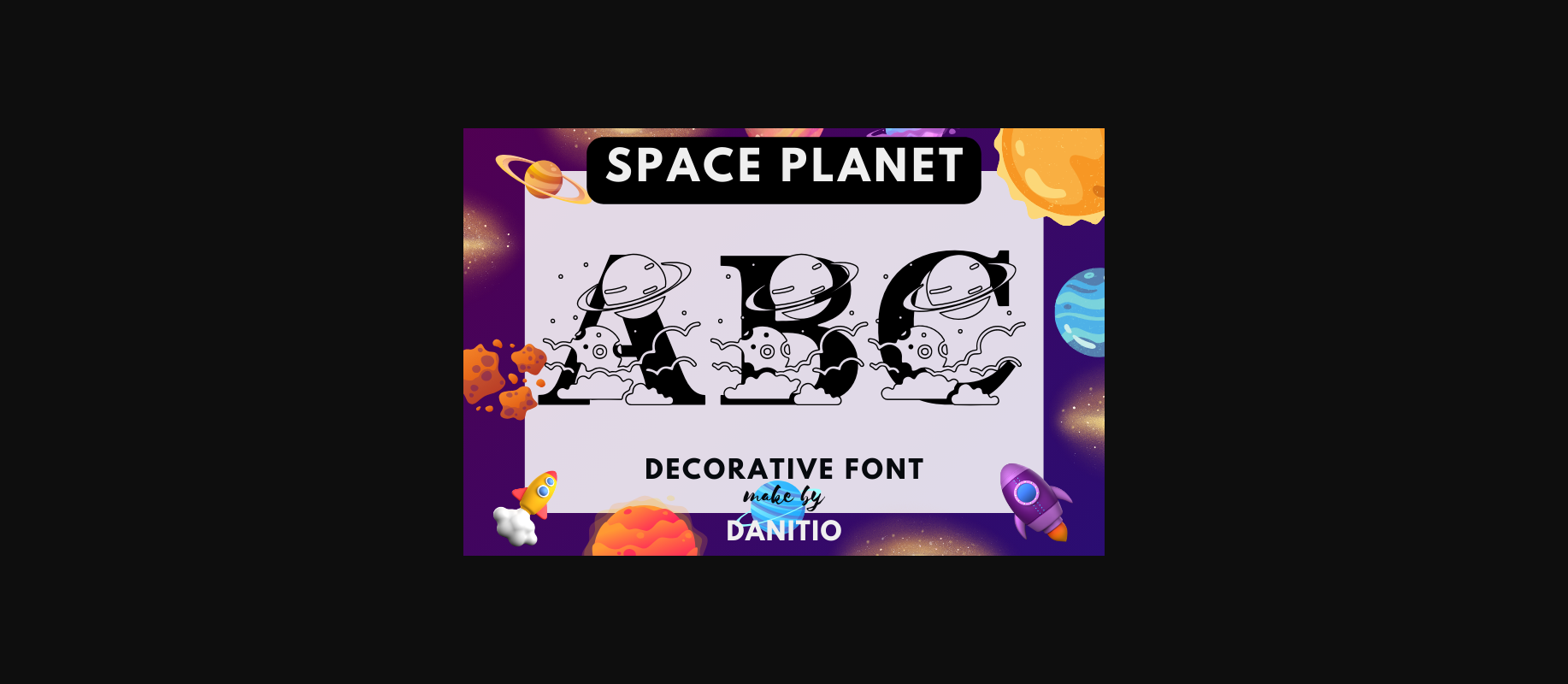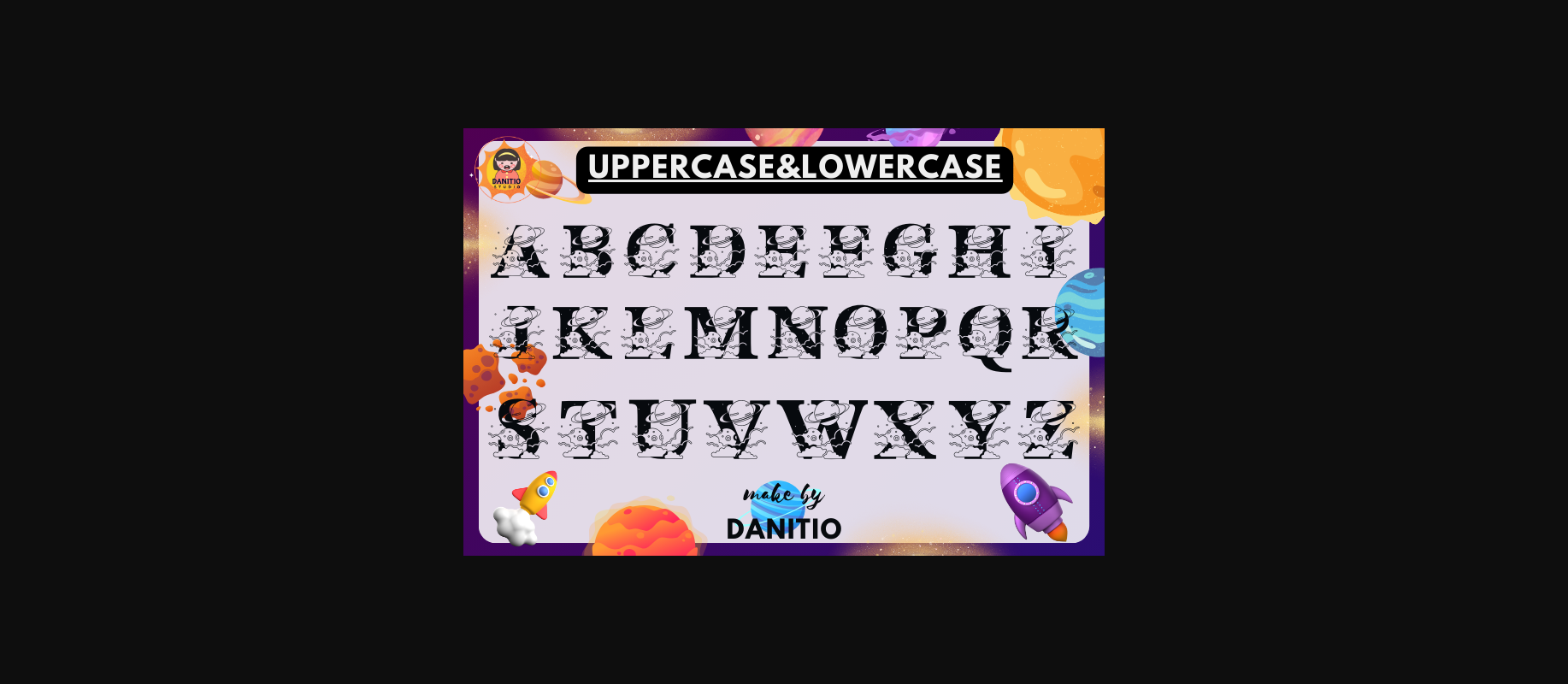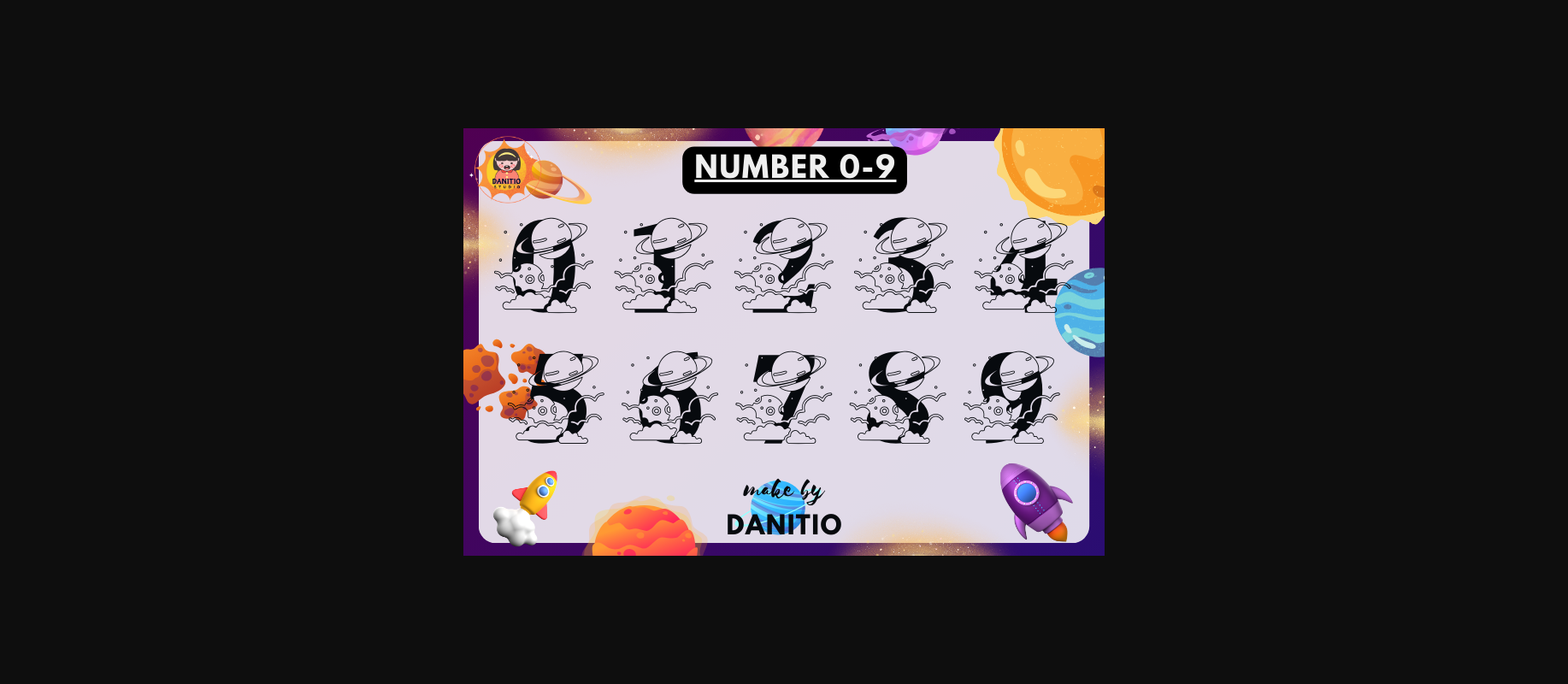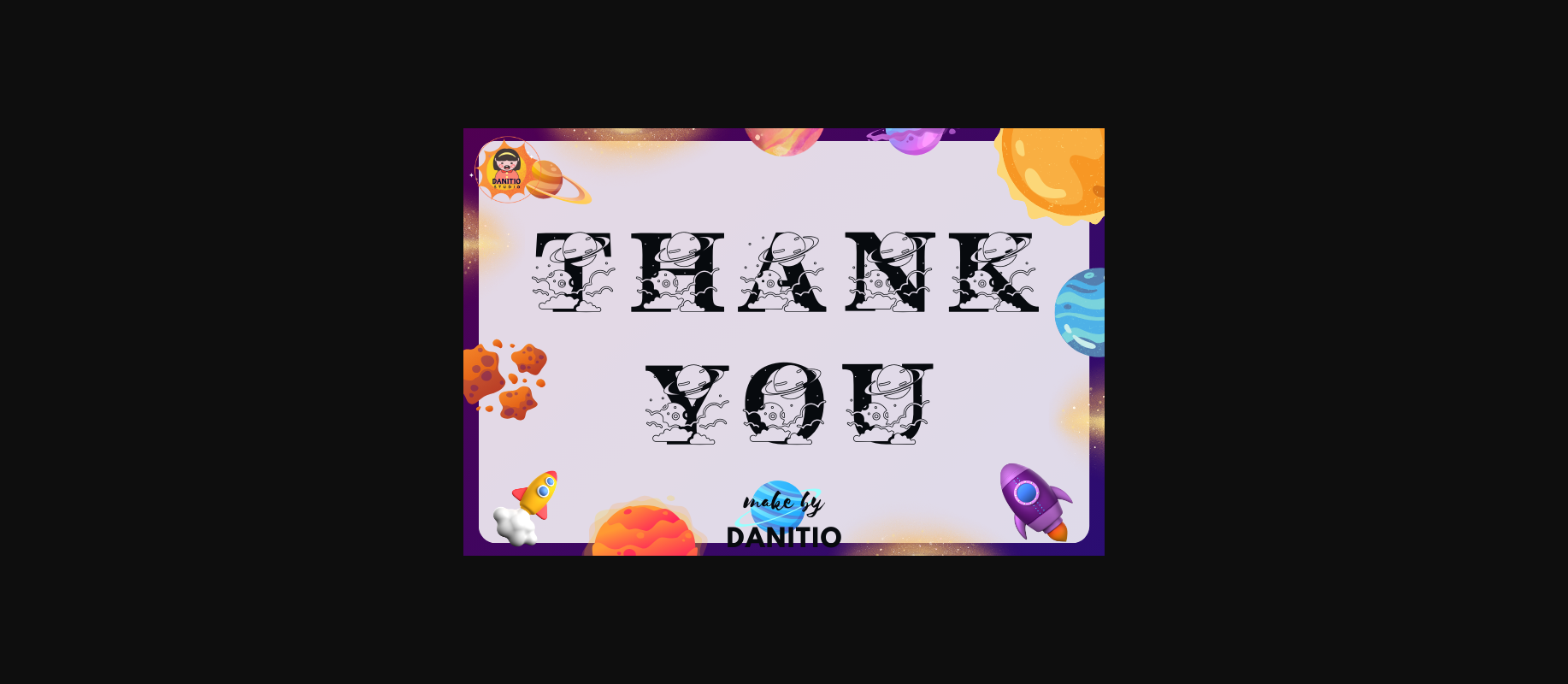
About Space Planet Font
Space Planet is a charming decorative font that transports you to distant galaxies with its playful design. Its whimsical curves and starry embellishments evoke a sense of cosmic wonder. Ideal for children’s books, posters, and space-themed projects, Space Planet adds a delightful touch of interstellar magic to your designs.